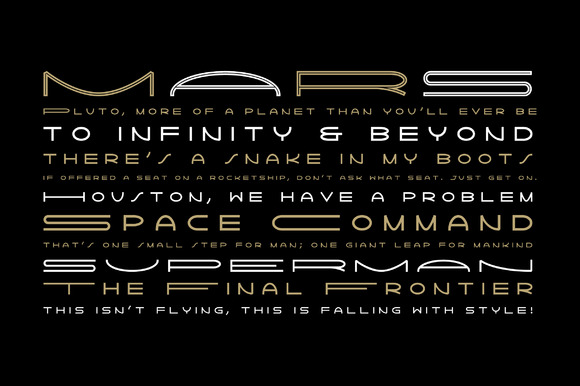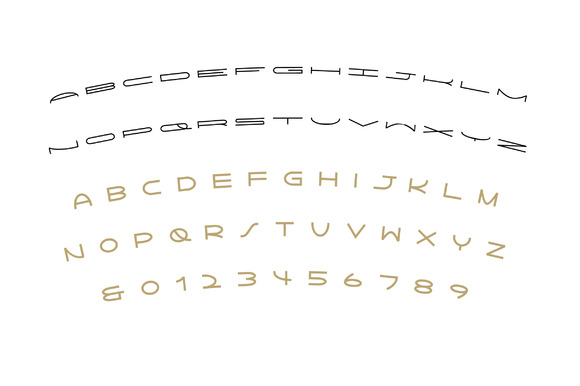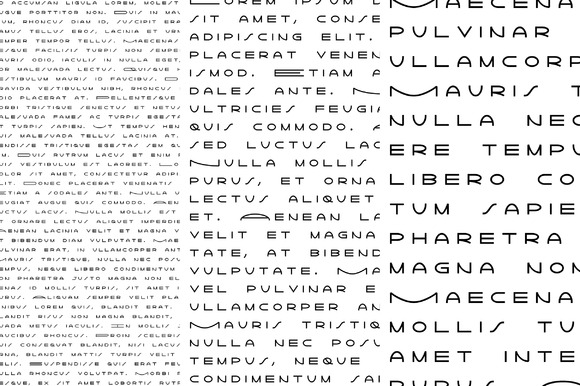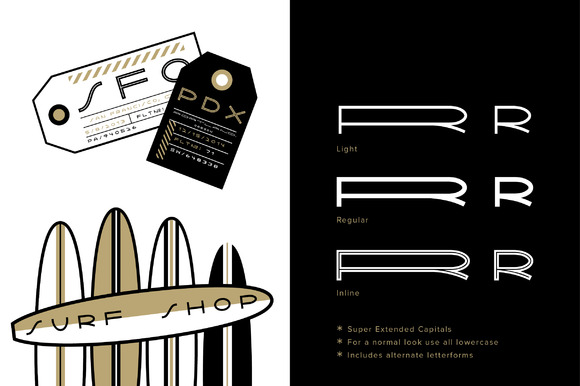
Lightyear Typeface
Lightyear is a retro typeface with roots in the 1950’s space science-fiction era. The combination of super extended capitals with the all-capped lowercase makes for a unique and interesting result. This typeface is also packed with a few alternate letterforms, 2 sets of arrows, and glyphs for various uses.Some of the more useful ones are: “ALT” + “S” = alternate uppercase S “SHIFT” + “ALT” + “S” = alternate lowercase S “ALT” + “&” = uppercase ampersand “ALT” + “1” = ” /100″ symbol